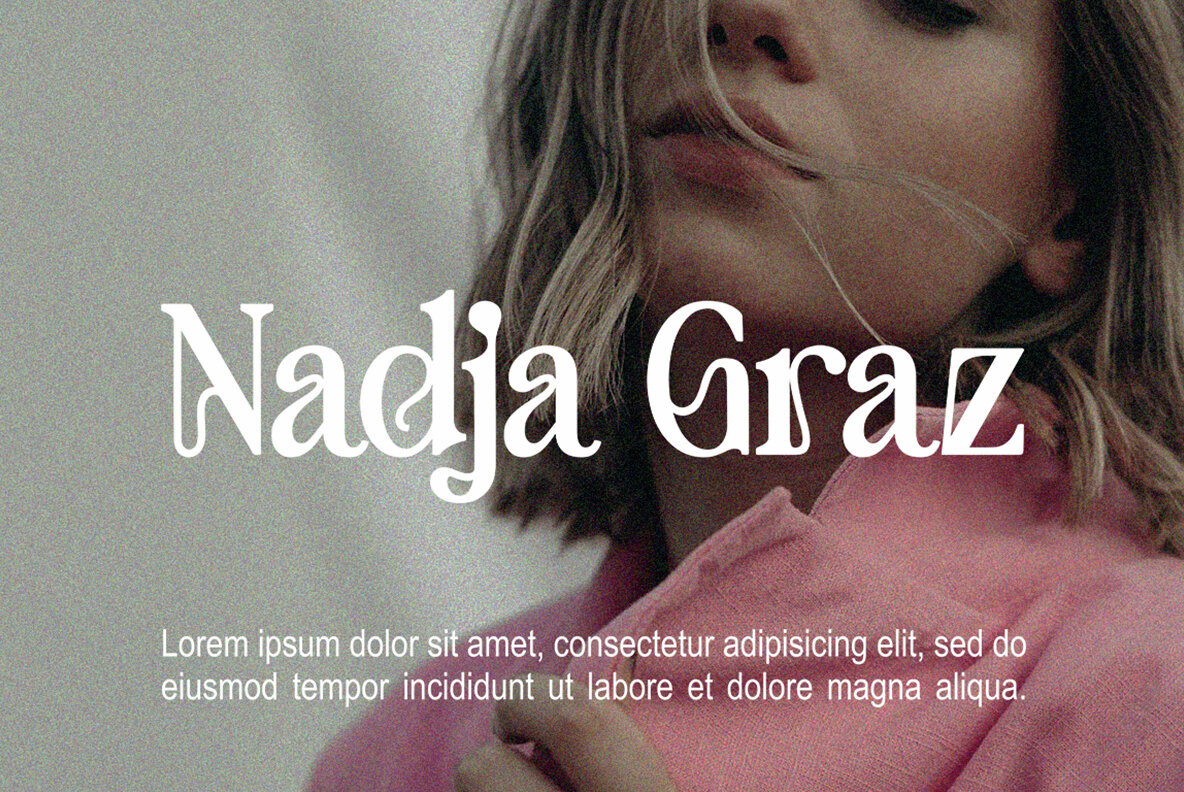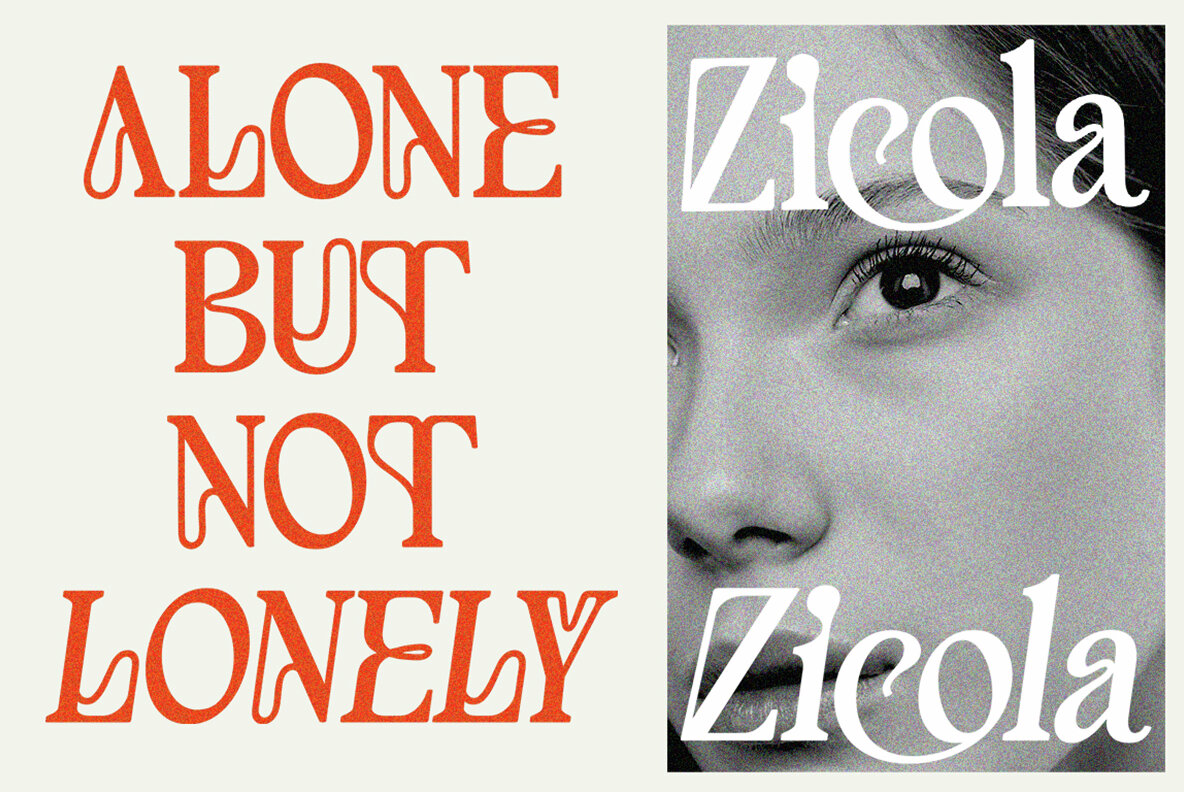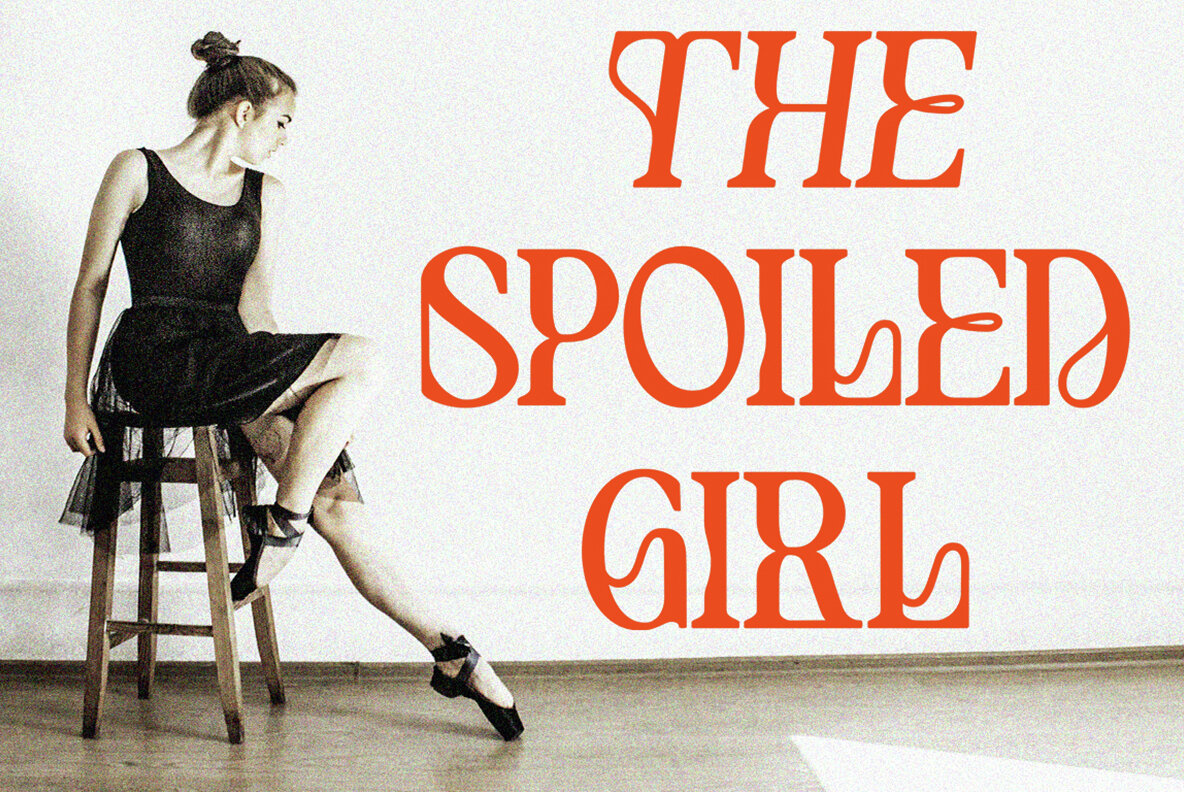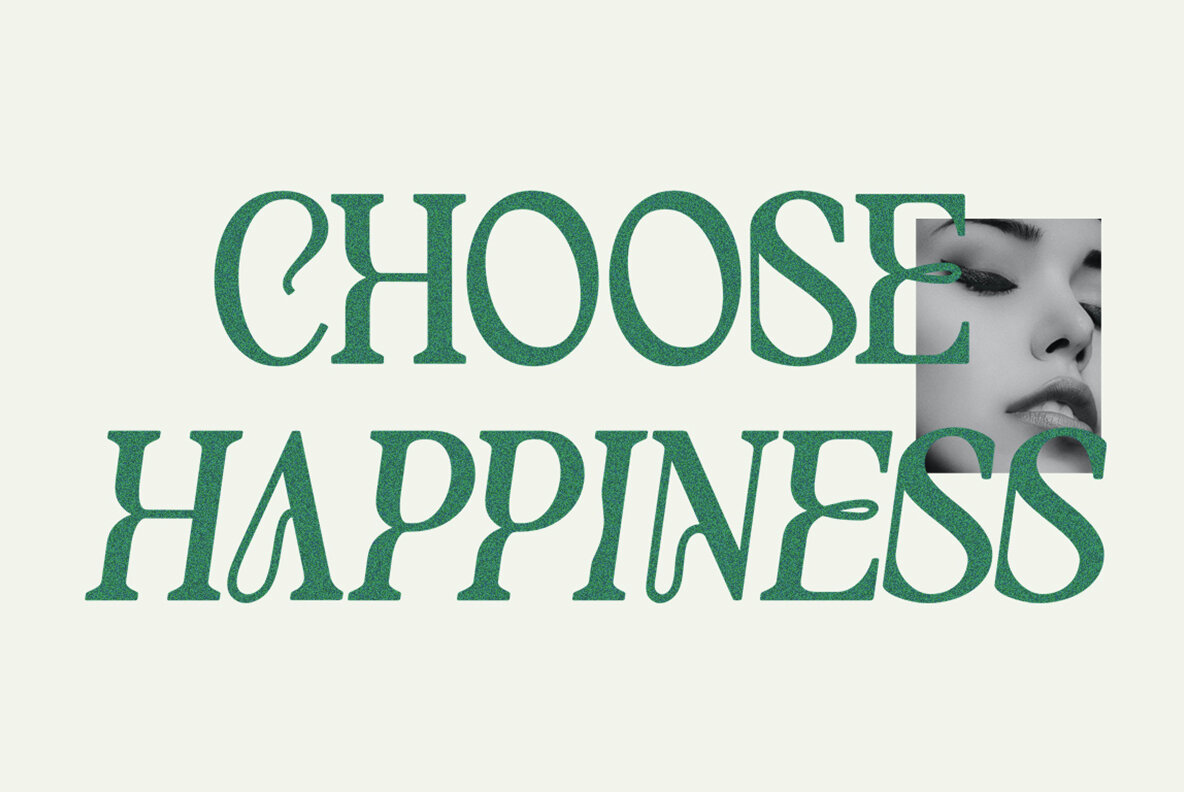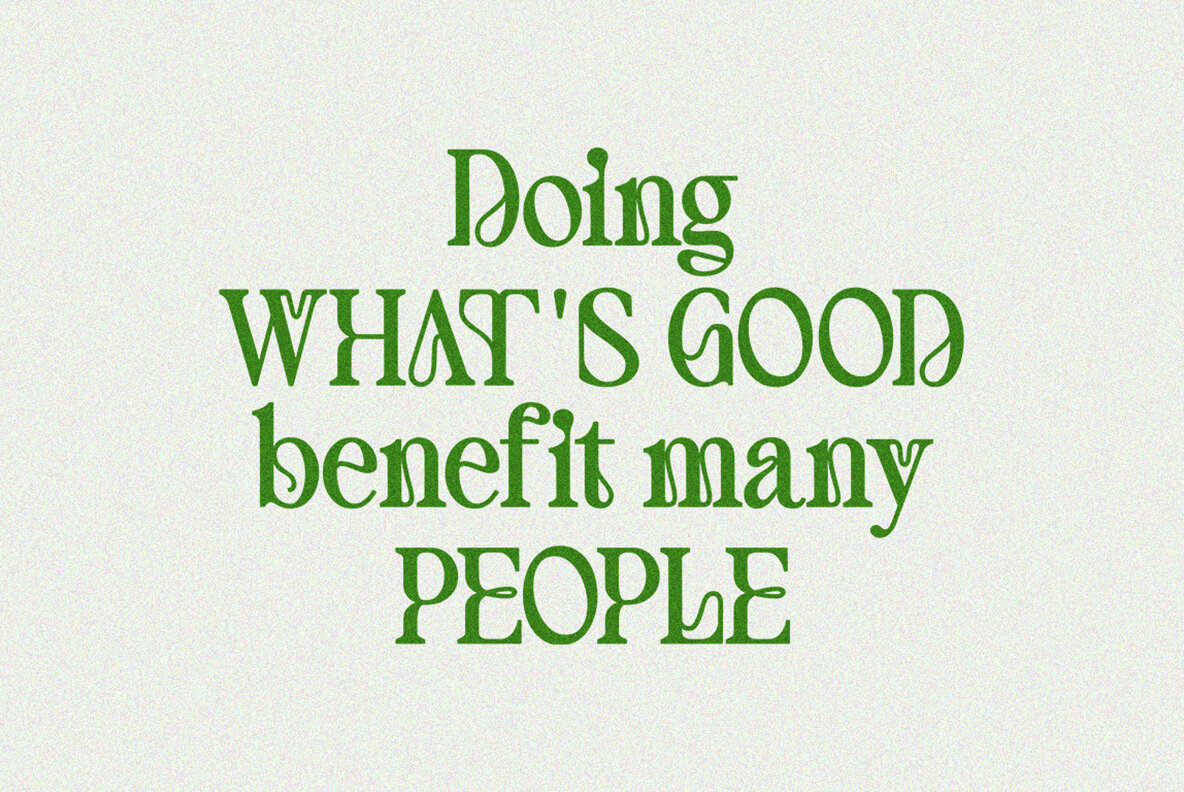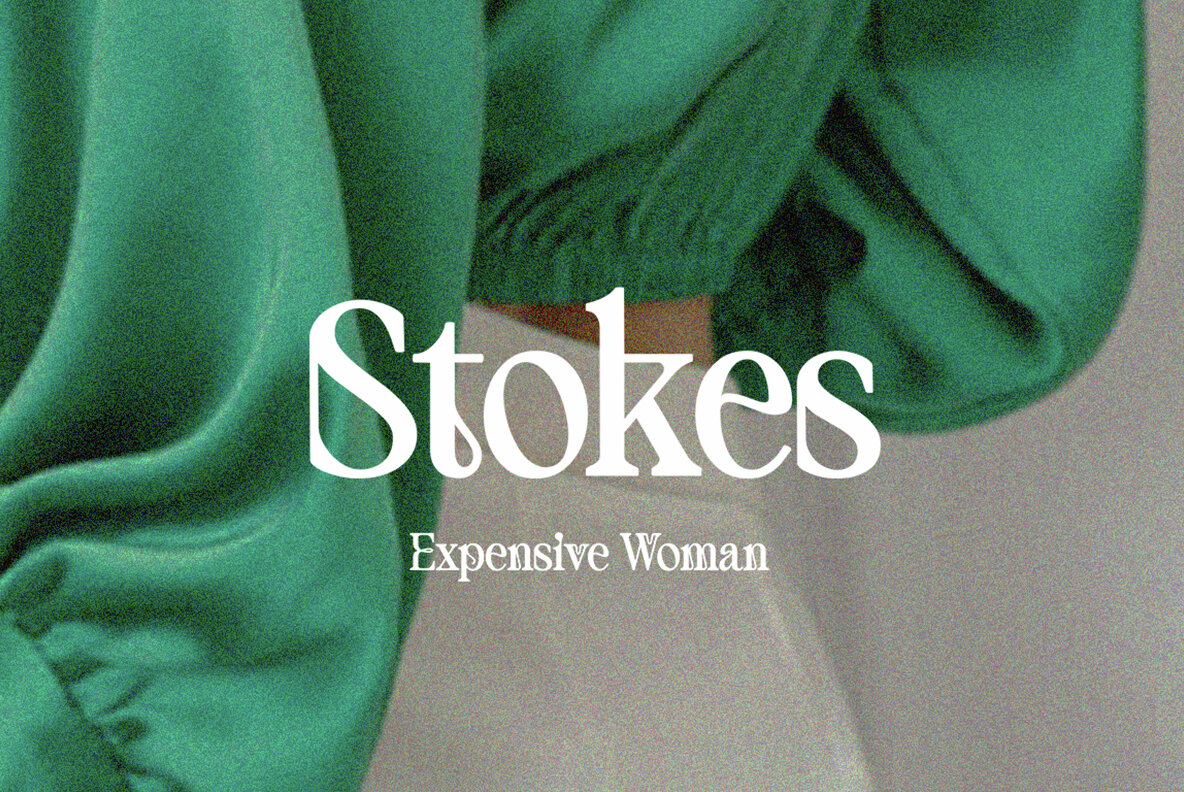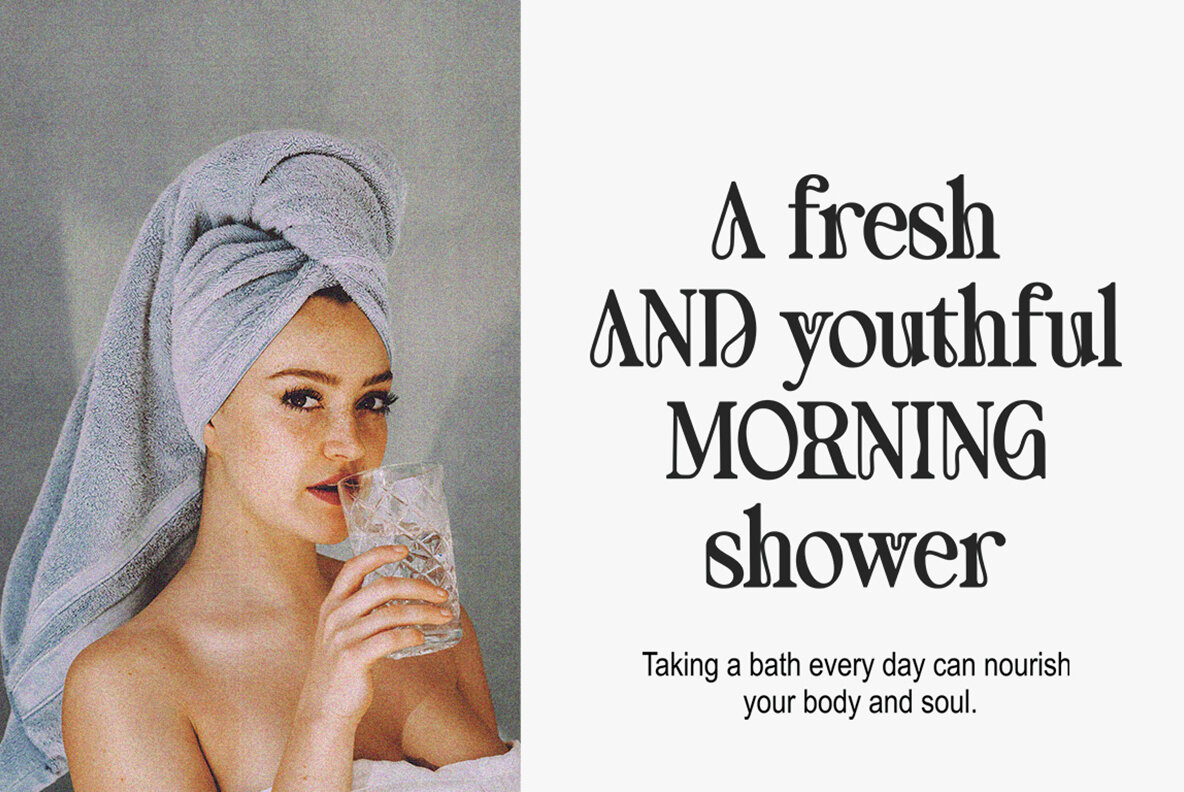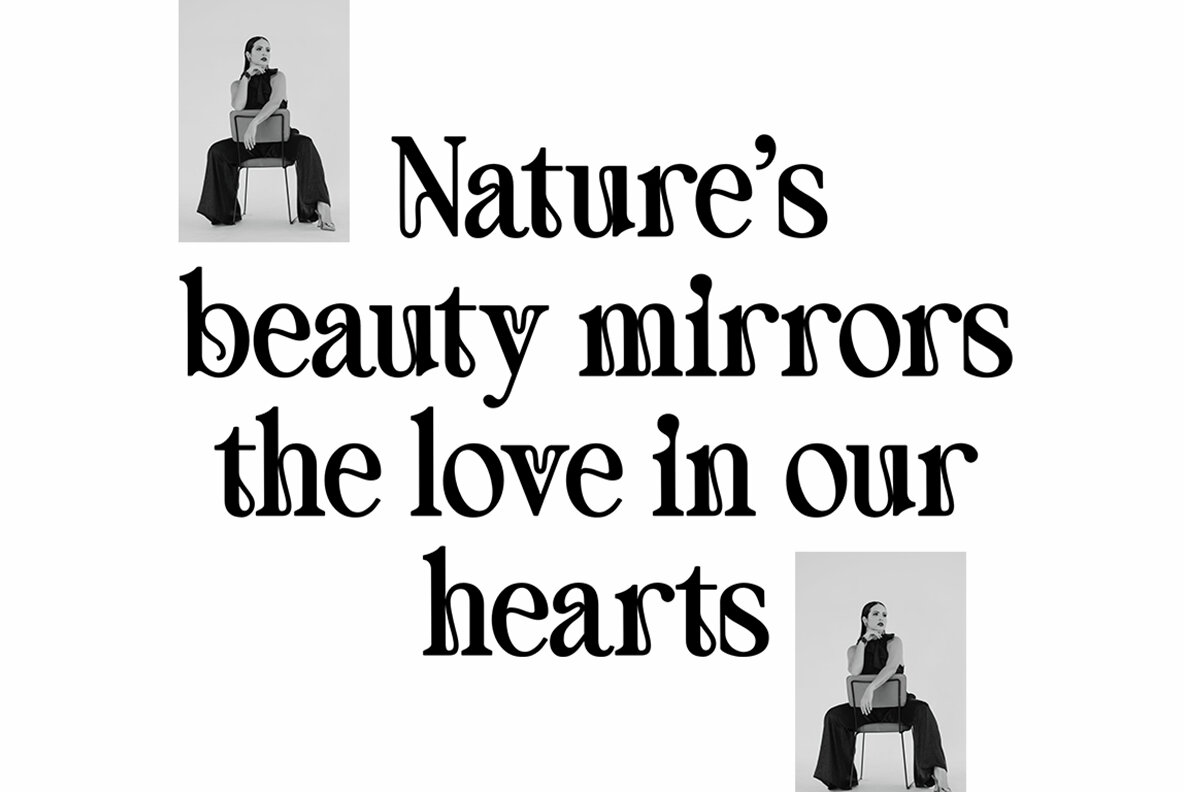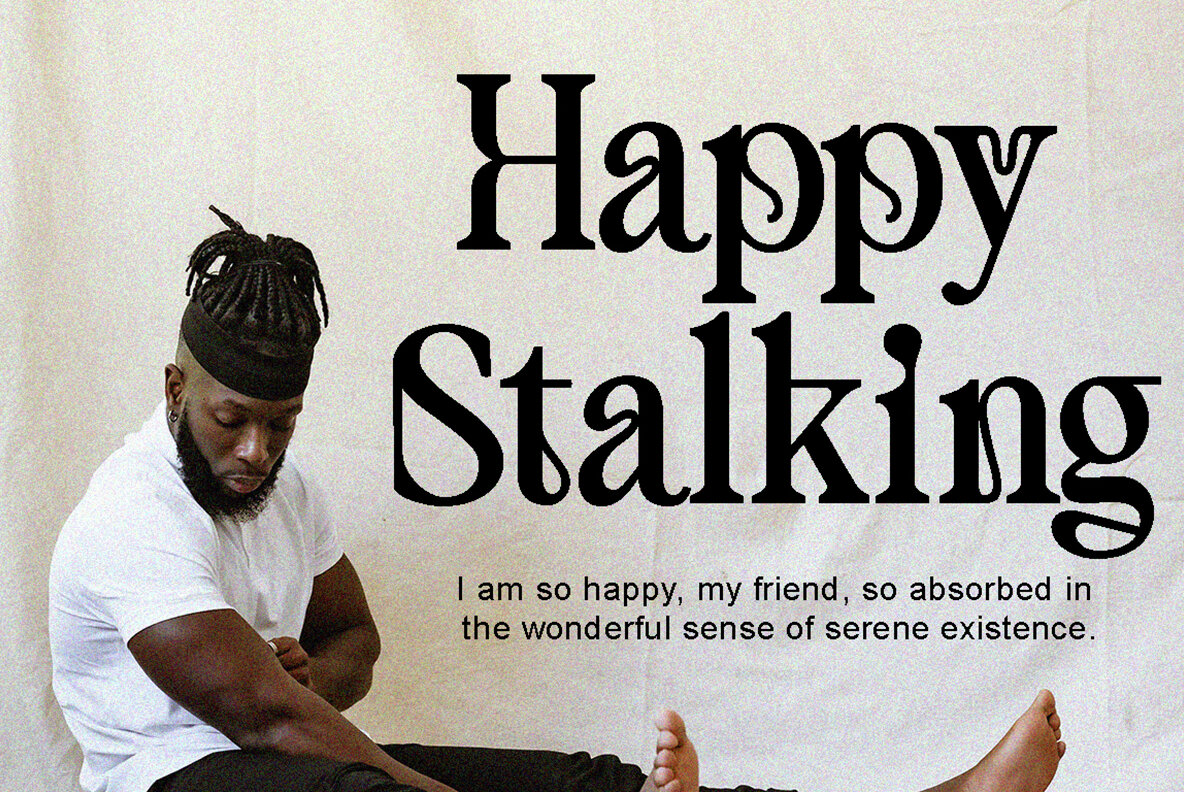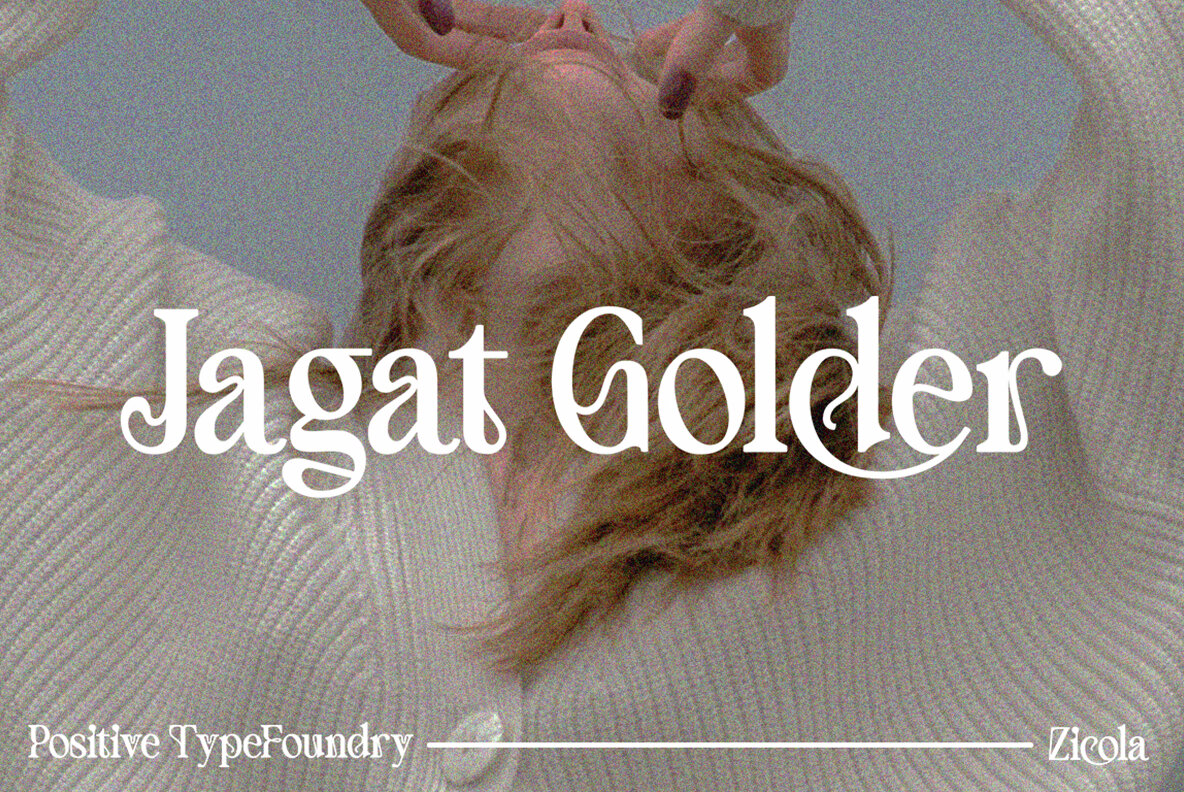
Zicola Font
Zicola is a distinguished serif typeface by Positive TypeFoundry, renowned for its elegance and versatility. Designed as a unique, alternative classy display serif, Zicola offers multilingual support and immaculate kerning, making it ideal for a variety of upscale design needs. Zicola is an essential addition to any designer's toolkit, particularly suited for luxury projects and sophisticated design endeavors.Zicola: Classy Display Serif Font